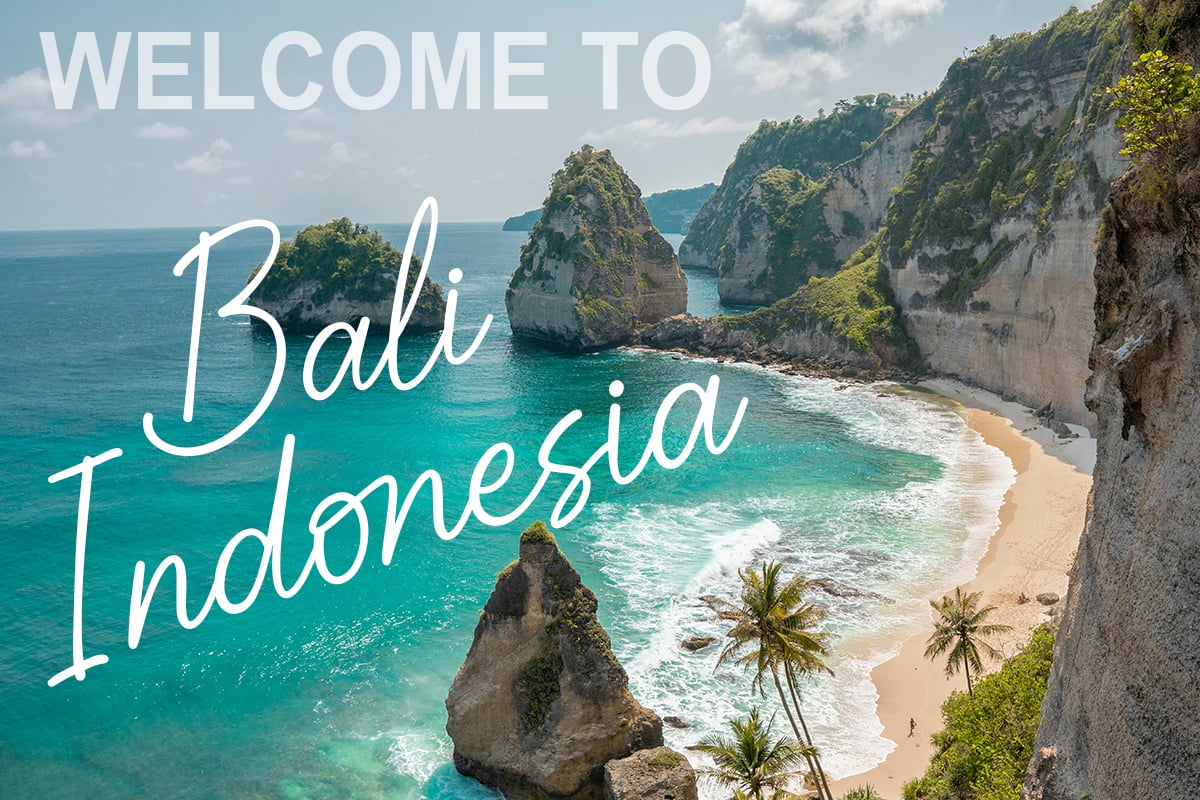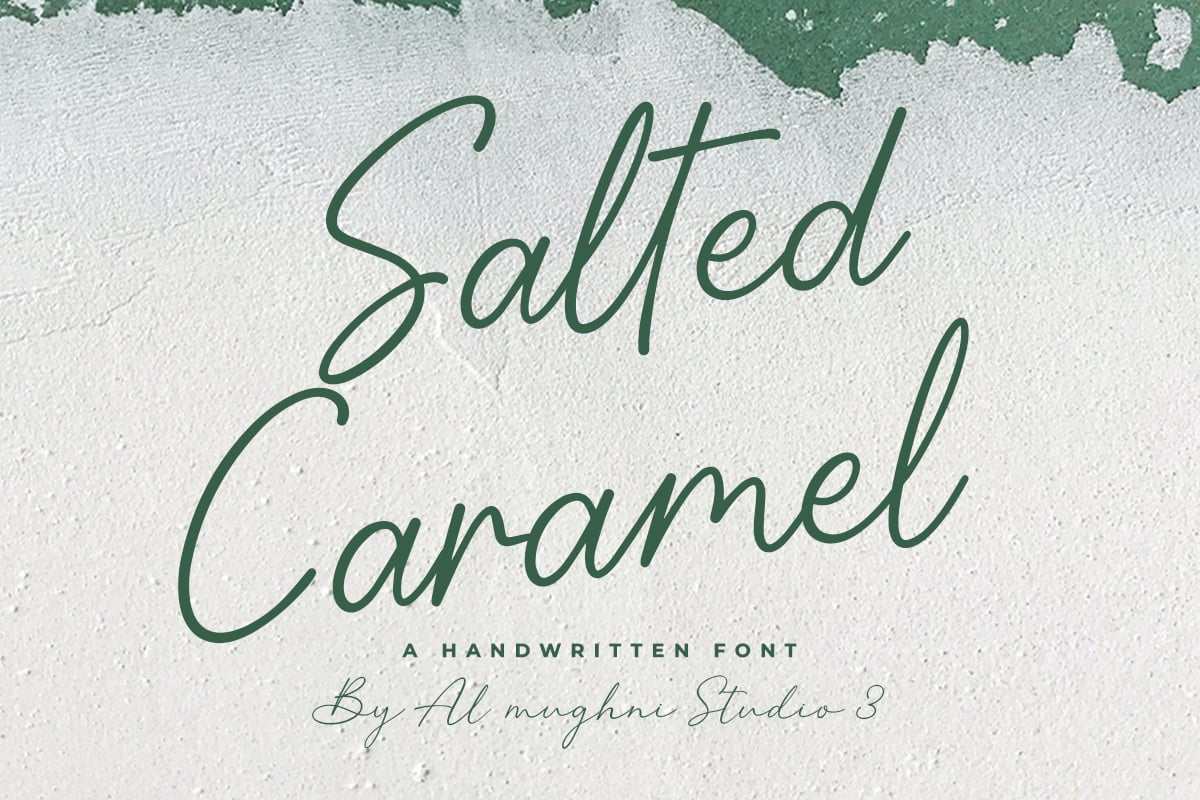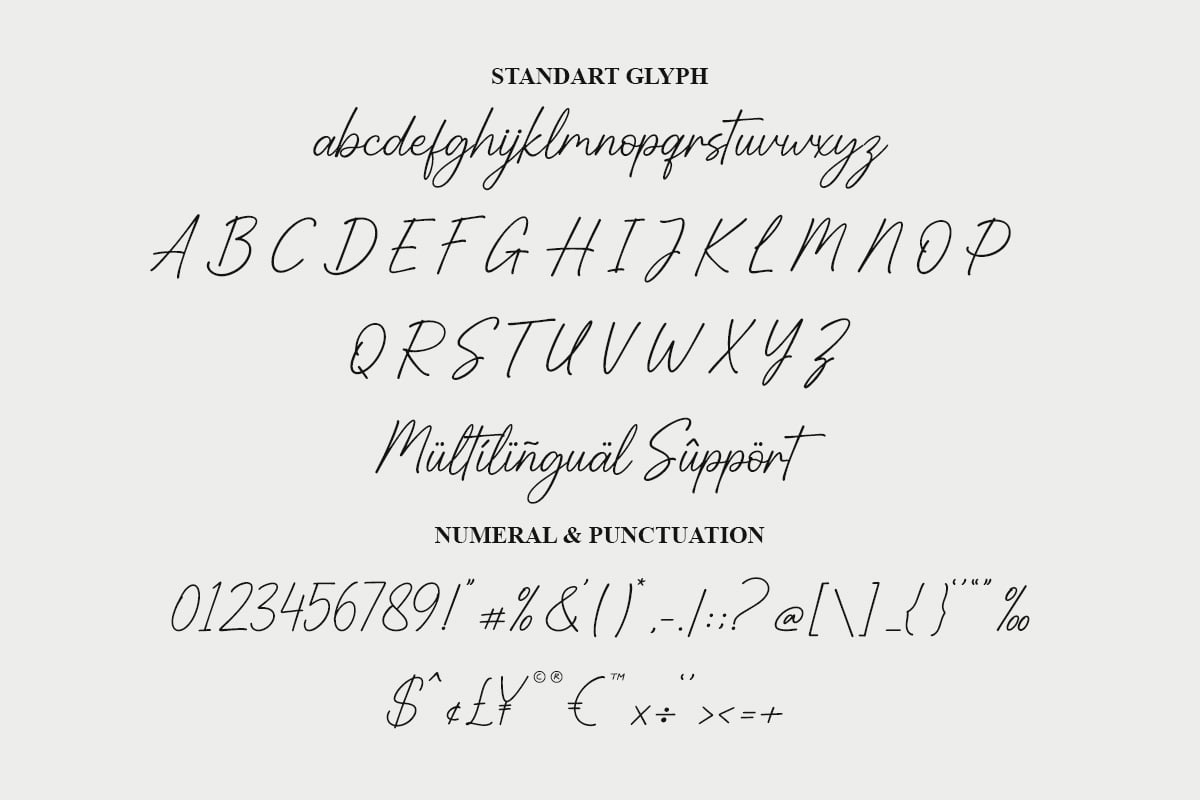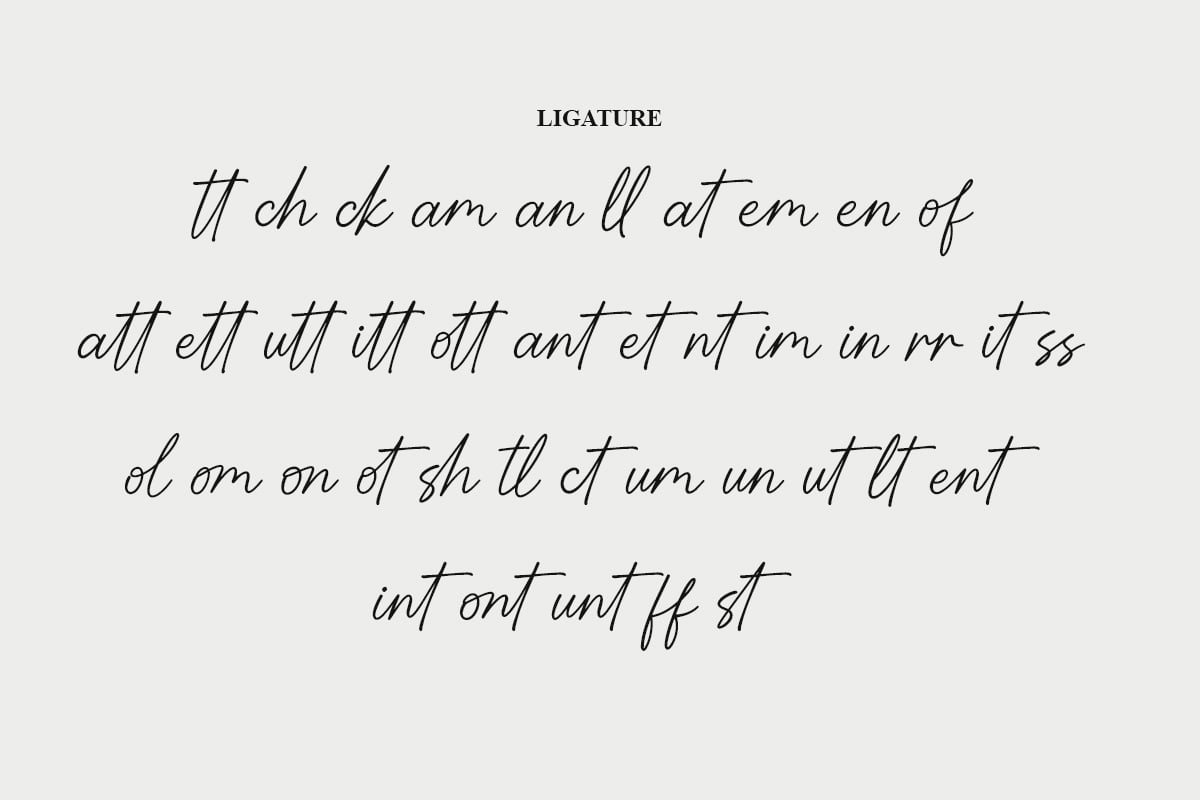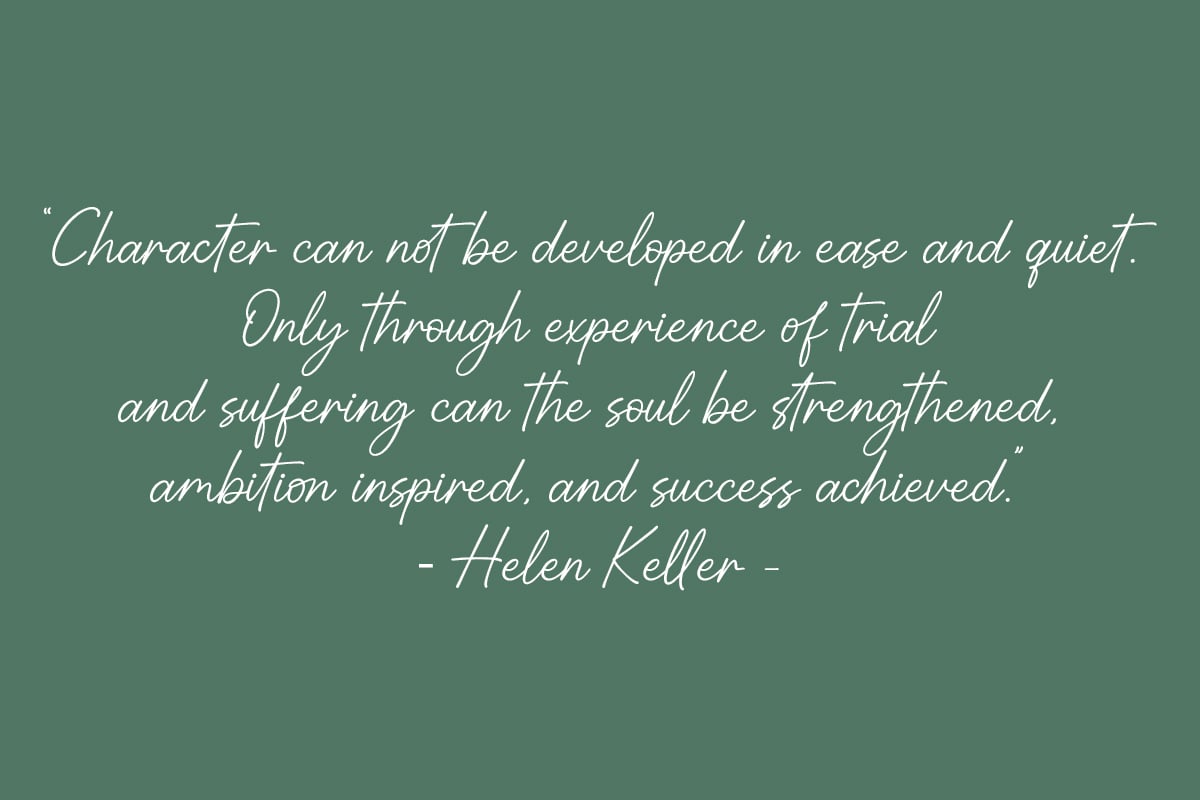
Salted Caramel Font
Salted Caramel – A Handwritten Font by Al Mughni Studio
Salted Caramel is a smooth and elegant handwritten font that brings a natural, personal touch to your creative projects. Designed with a clean and modern handwriting style, it adds warmth and authenticity to any design — from logos and packaging to invitations and social media graphics.
With its soft curves and balanced letterforms, Salted Caramel is perfect for adding a friendly yet professional feel to your typography. The natural flow of each character makes it ideal for both short headlines and longer text layouts.
Stylish handwritten design with natural flow
Uppercase & lowercase letters
Numbers and punctuation included
Multilingual support
Perfect for:
Branding and logo design
Product packaging and labels
Wedding invitations and stationery
Quotes, greeting cards, and posters
Social media and website headers
Add personality and charm to your work with Salted Caramel — a handwritten font that turns every design into something heartfelt and unique.